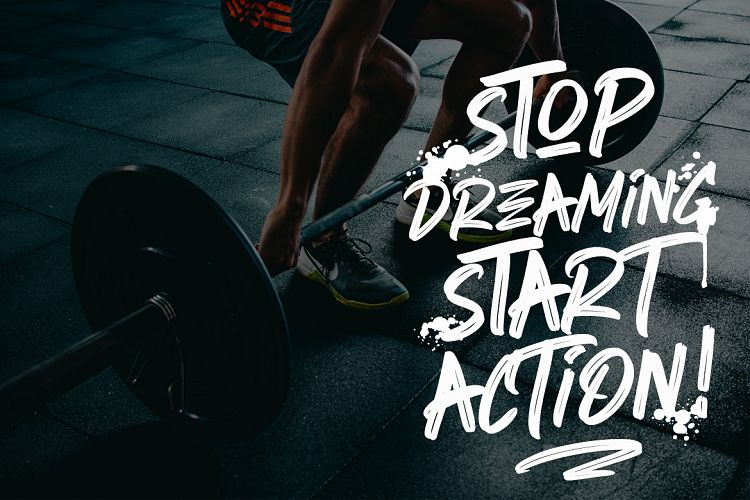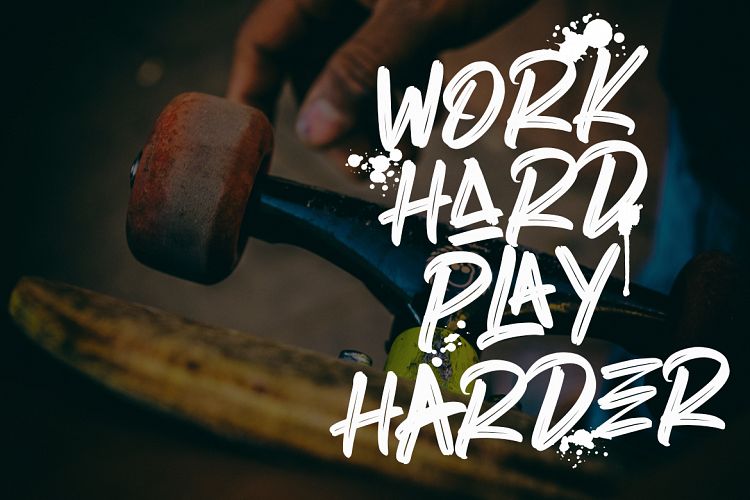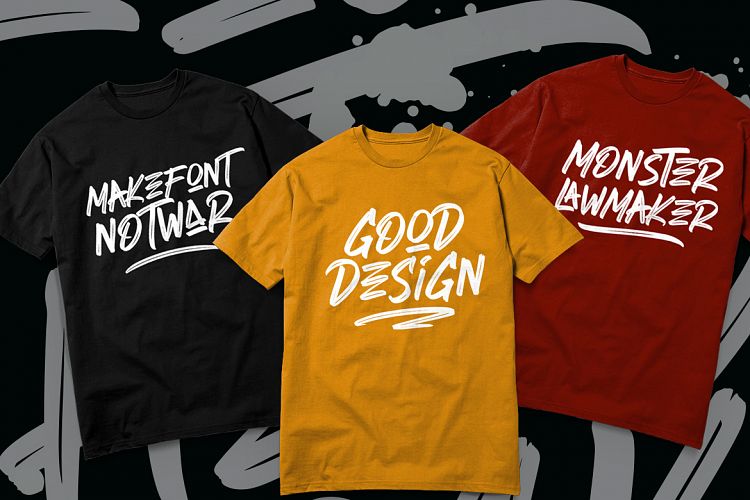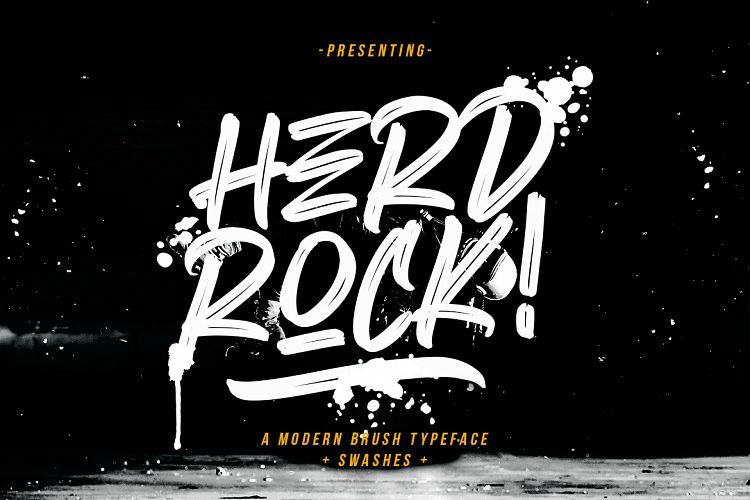
Herdrock Brush Font
Herdrock Brush Demo Font
Hello guys. A mdern brush typeface. Arlon makes it easy to give any brand or advertising a cool & futuristic look. Introducing Herdrock Typeface. Herdrock Brush Font is a supercharged brush font bursting with inline striping modern style.
Herdrock is perfect for branding projects, logo, wedding designs, social media posts, advertisements, product packaging, product designs, label, photography, watermark, invitation, stationery and any projects that need handwriting taste.